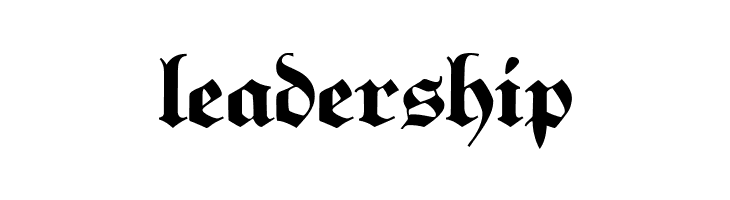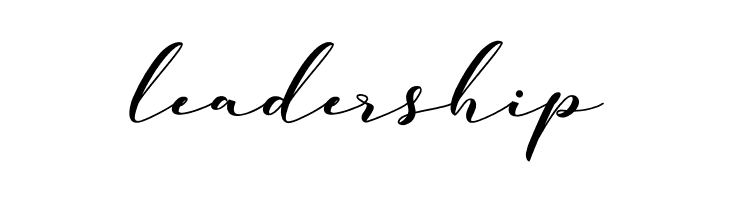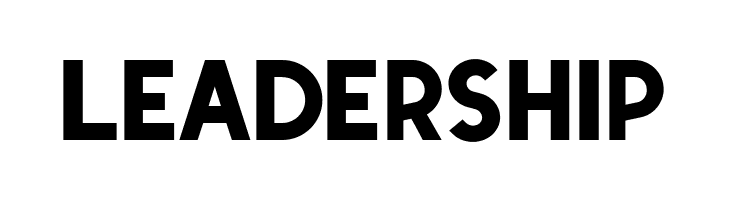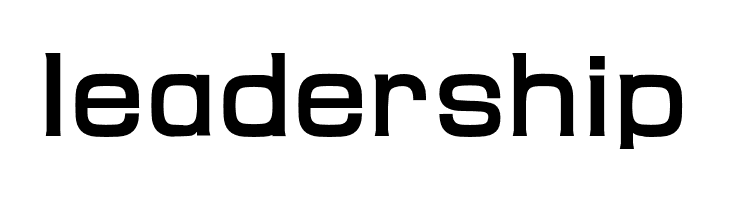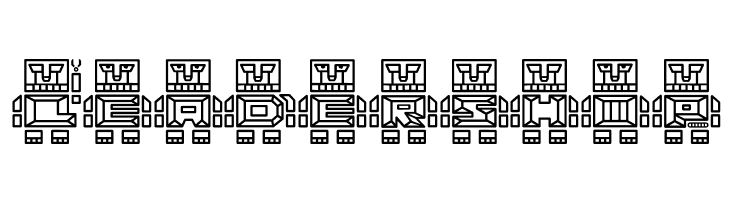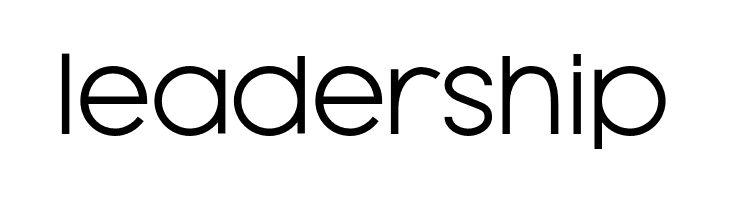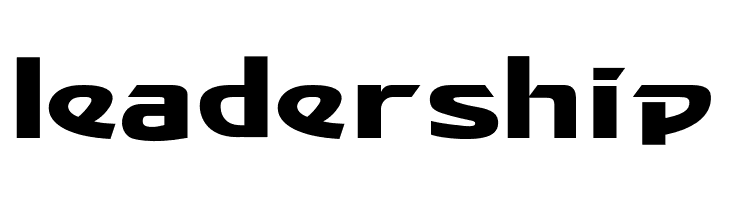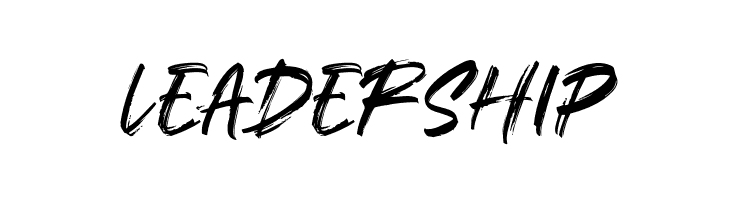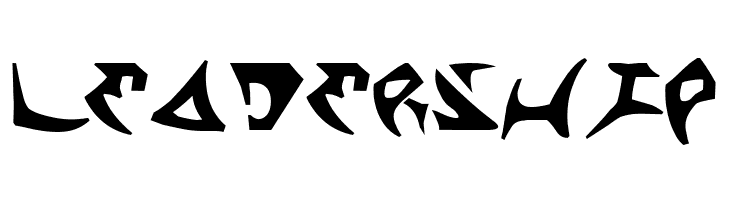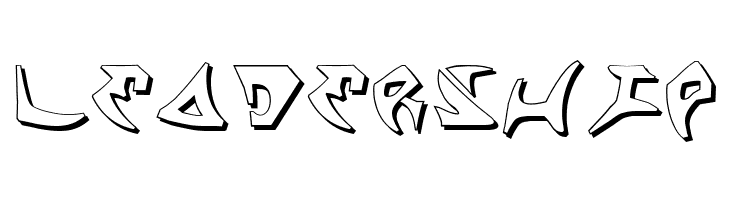
A bold, geometric outline font with a modern, industrial style.
A traditional Blackletter font with intricate detailing and bold, angular lines.
An ornate and decorative font with a classic, historical style.
A bold Blackletter font with intricate, angular letterforms and decorative flourishes.
A bold, ornate Blackletter font with high contrast and decorative flourishes.
A bold, rounded font with a playful, cartoonish style.
A bold, rounded font with a playful, three-dimensional style.
A modern serif font with sharp angles and strong vertical emphasis.
An artistic and calligraphic font with elegant curves.
A cursive, handwritten-style font with flowing, artistic strokes.
A bold, brush script font with dynamic and expressive strokes.
A bold, rounded, and modern font with a playful and approachable style.
An elegant and flowing script font with graceful loops and swashes.
A modern, geometric sans-serif font with clean lines and consistent stroke widths.
A bold, geometric sans-serif font with a modern and clean design.
An ornate, decorative font with intricate floral patterns.
A bold, angular font with a futuristic and aggressive style.
A bold, angular font with a futuristic and edgy design.
A bold, angular font with a futuristic and dynamic design.
A bold, distressed font with a grunge-like, hand-drawn appearance.
A bold, geometric font with sharp, angular strokes and a modern aesthetic.
A bold, futuristic font with geometric and block-like design.
A bold, angular font with a monstrous and imposing style.
Elegant cursive script with flowing, interconnected strokes.
A bold, geometric font with a 3D effect, perfect for modern and futuristic designs.
An angular, mystical font with sharp edges and high contrast.
A bold, textured font with a vintage, distressed style.
A bold, decorative font with a robotic, futuristic design.
A bold, geometric font with a modern and clean aesthetic.
A decorative ribbon-themed font with elegant, cursive lowercase letters.
A bold, expressive handwritten font with fluid, dynamic strokes.
A bold, flowing script font with elegant curves and decorative swashes.
A bold, modern font with strong, uniform characters.
A bold, flowing script font with high contrast and elegant cursive strokes.
A cursive, handwritten-style font with elegant, flowing strokes.